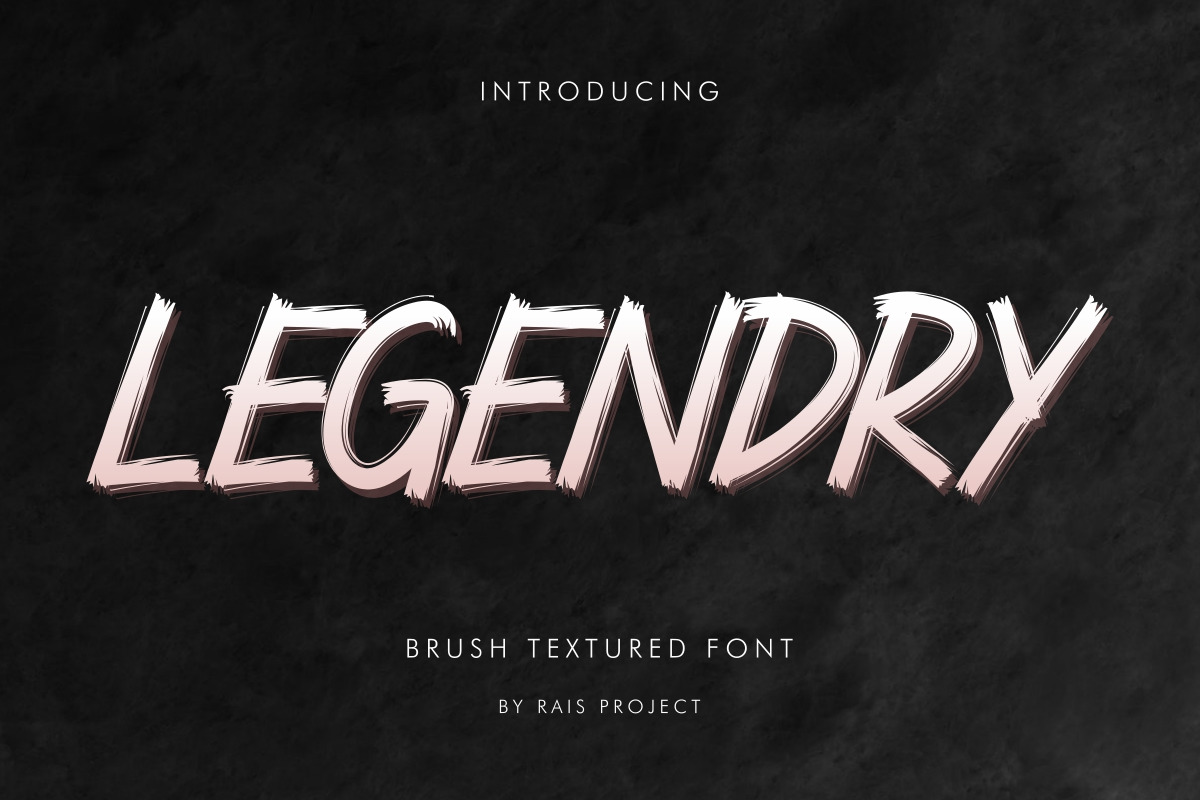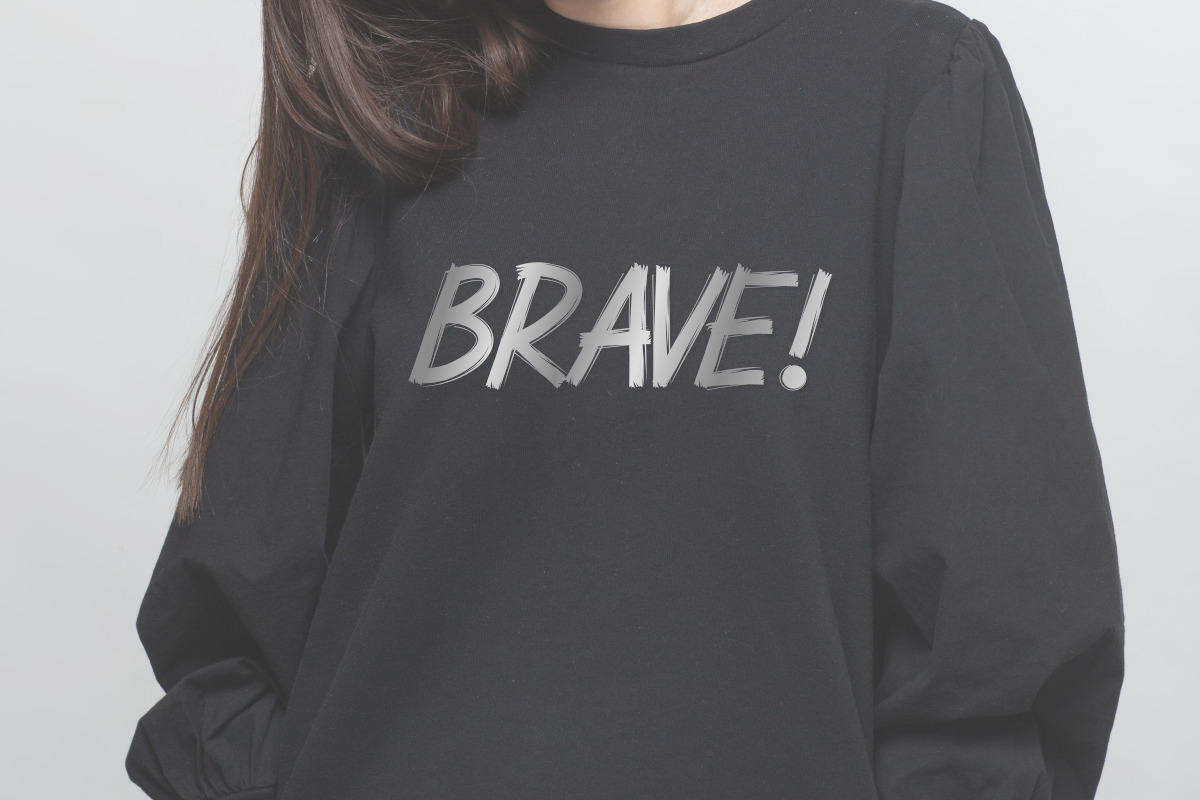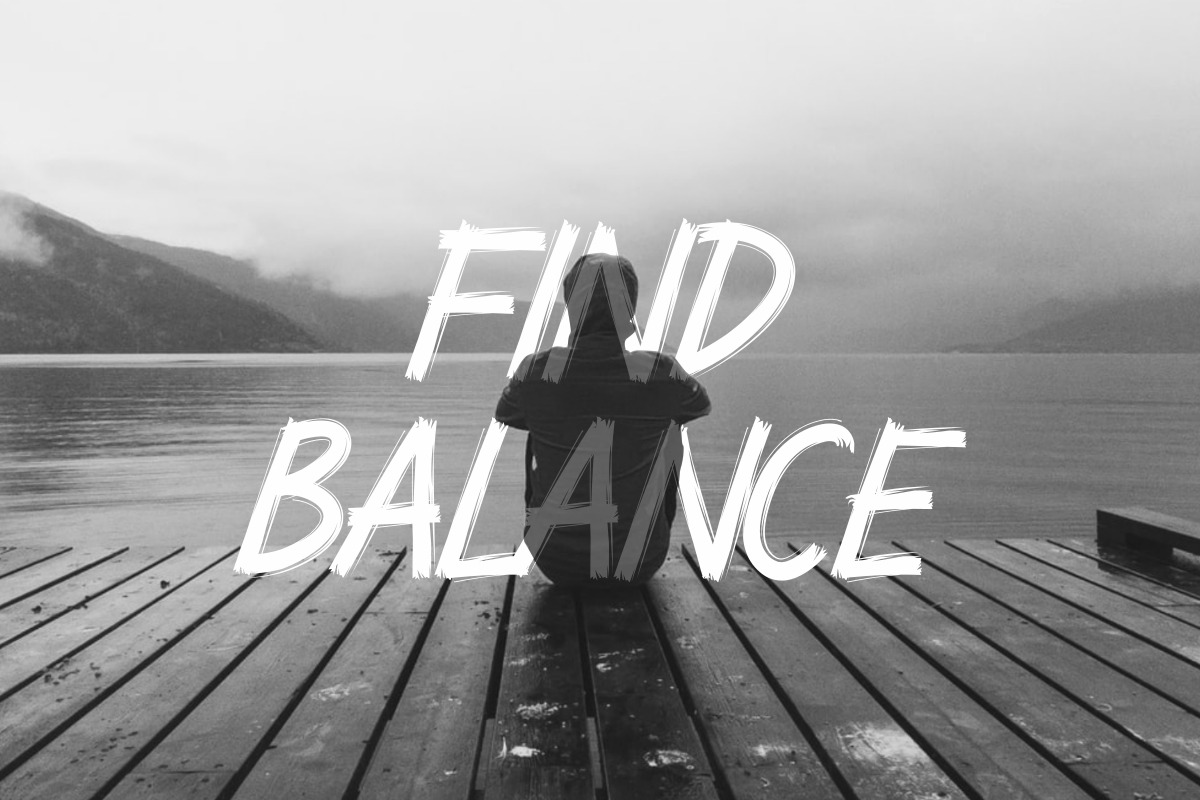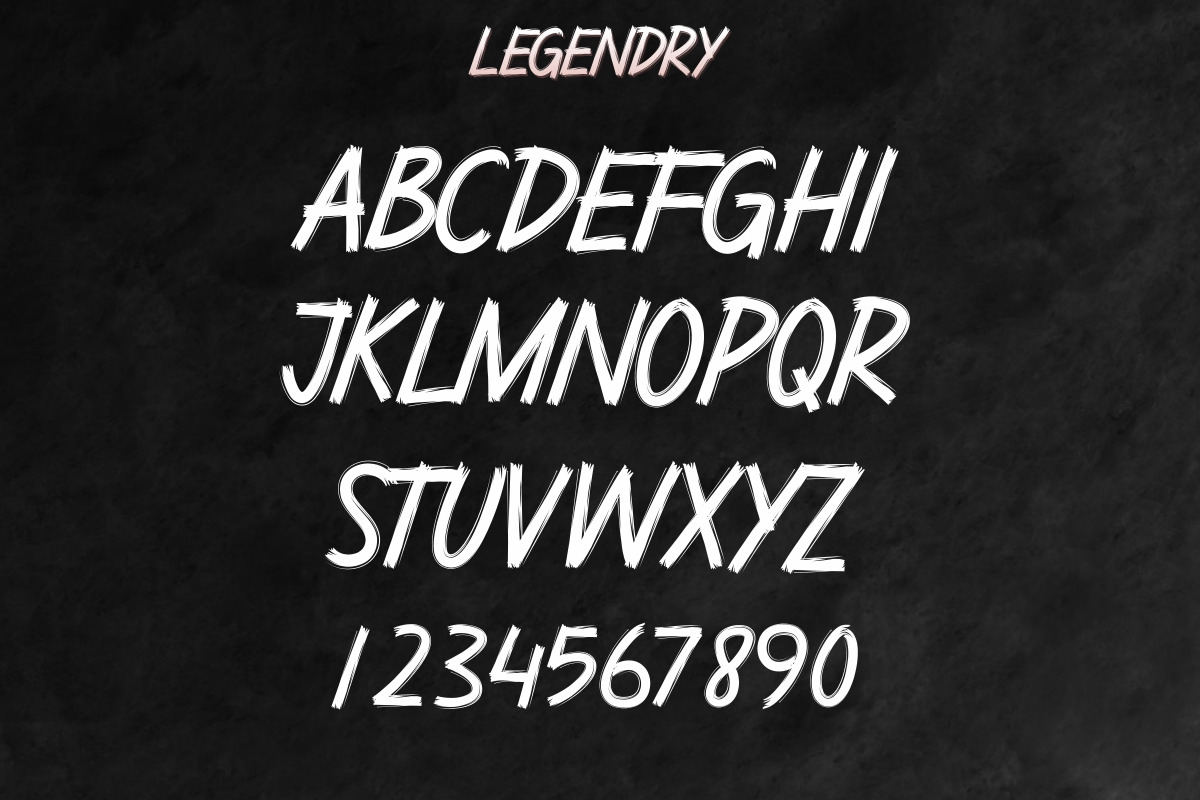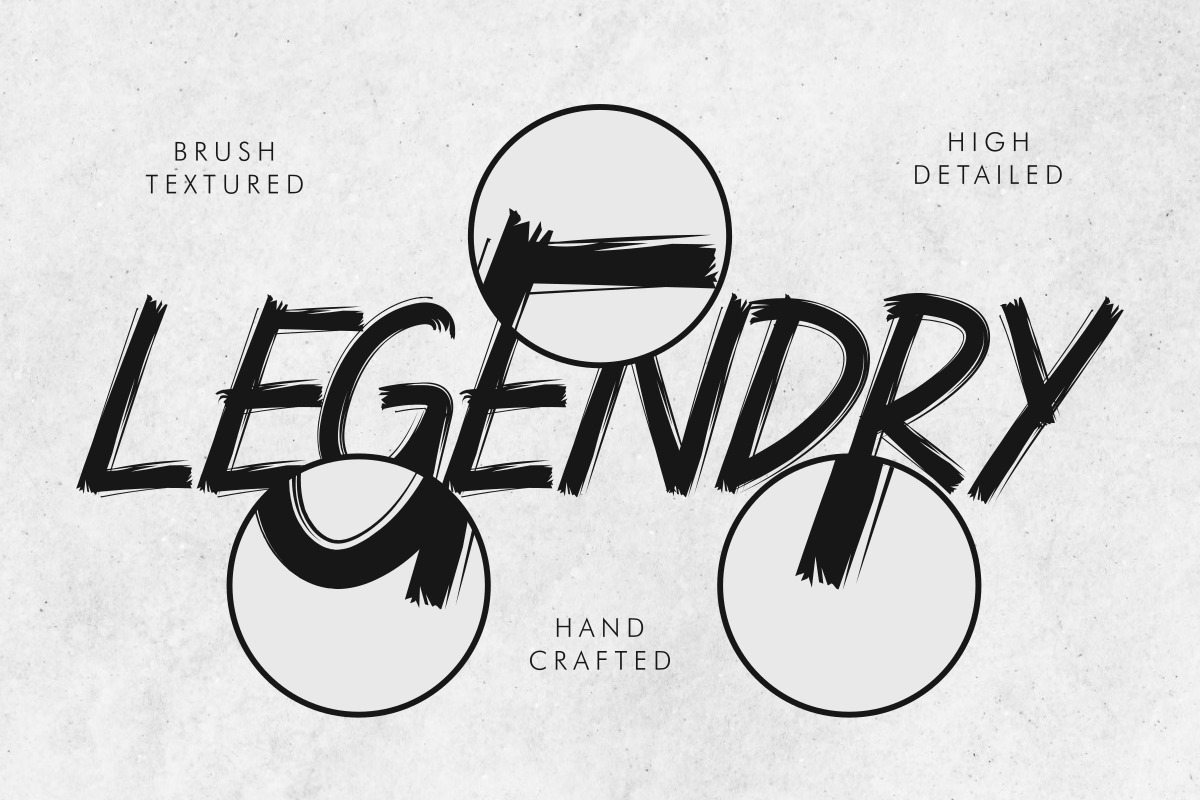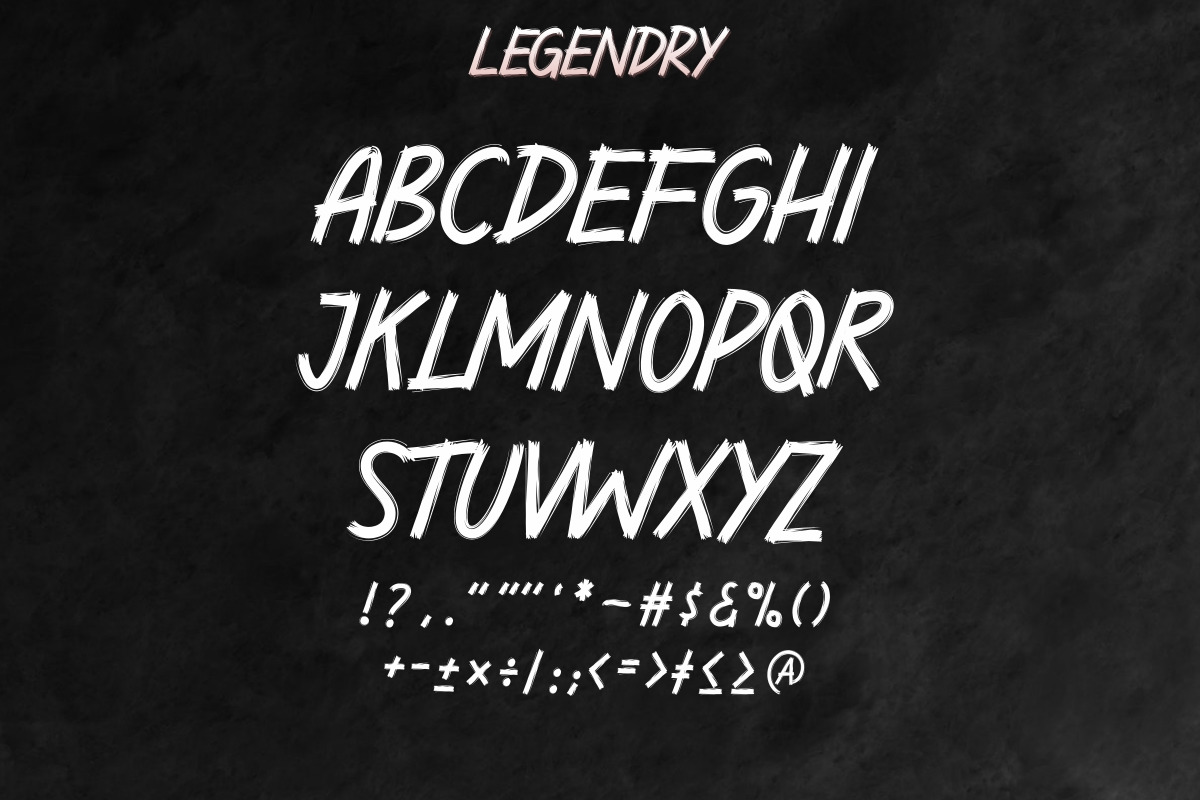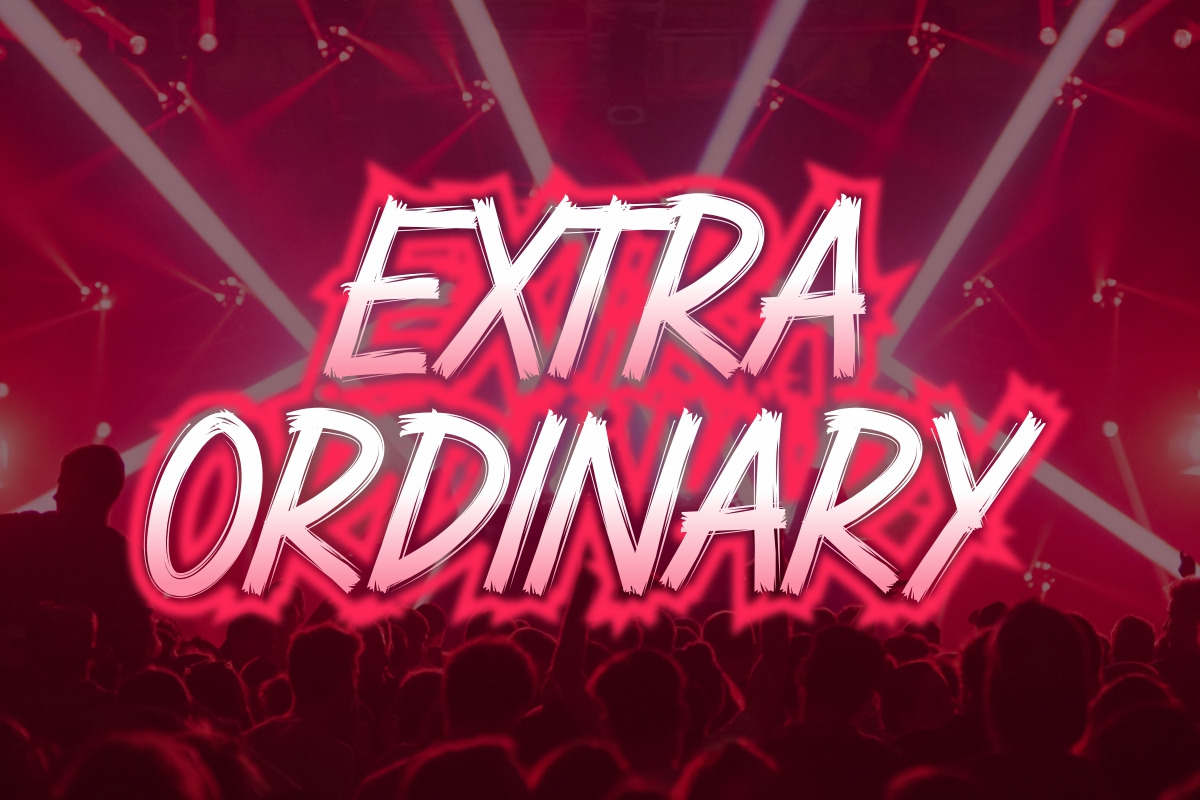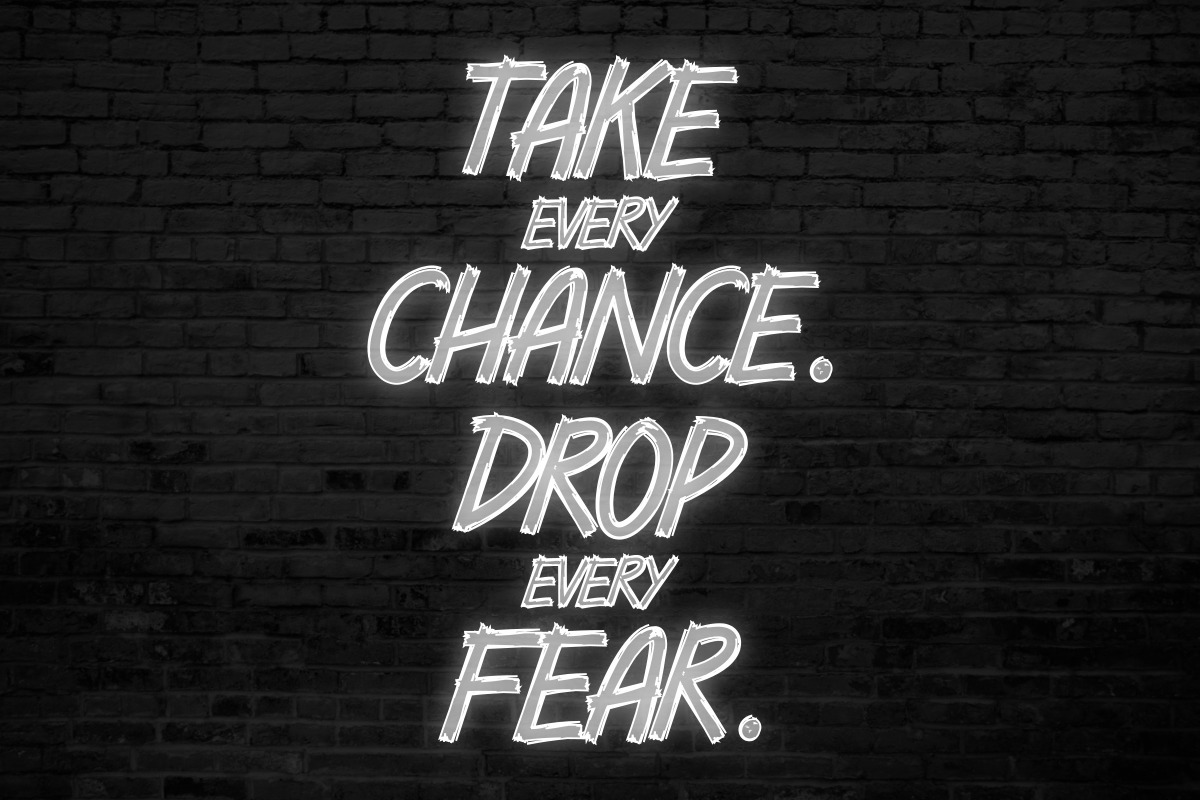
LEGENDRY Font
LEGENDRY Font is a rough brush display font, designed by Rais Project. It is a Textured brush display font with exclusive style that is great for Horror, Movie, Game, Magazine, Music, Video, Sports, Racing etc